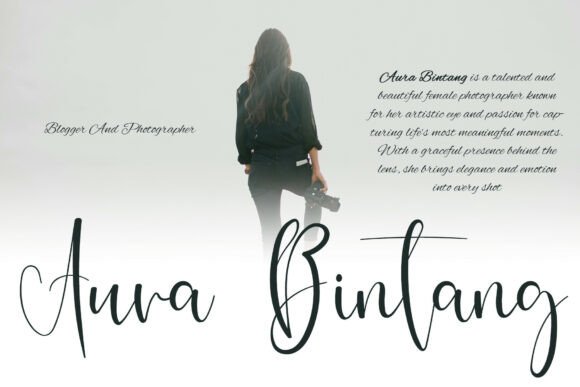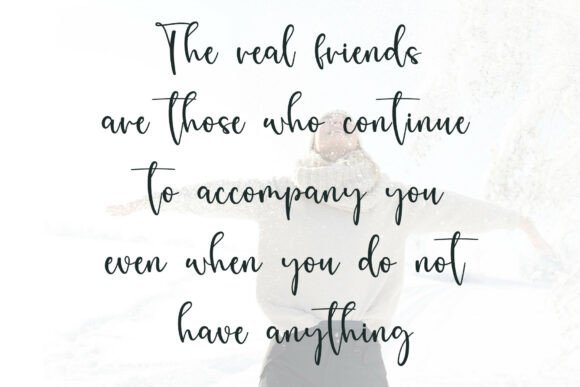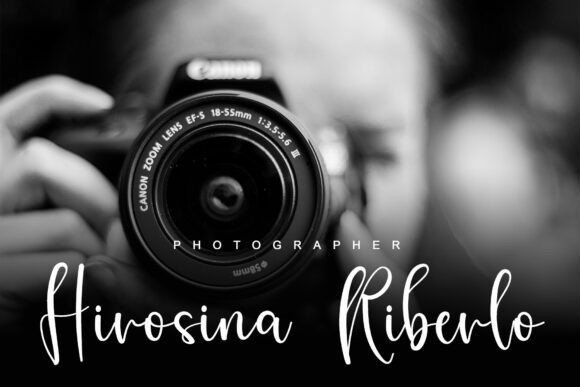
Introduction to Prefecture Font
Have you ever been stuck on a creative project, desperately searching for the perfect design resource to bring your vision to life? That’s where the Prefecture Font comes in – a beautiful, handwritten font that’s sure to add a touch of magic to your next design.
Imagine you’re planning a wedding and you want to create the perfect invitation. You’re browsing through design inspiration, and suddenly, you stumble upon a stunning invitation with a soft, characterful font that makes your heart skip a beat. That’s what the Prefecture Font is all about – creating a high-quality design that’s perfect for any celebration day.
With its PUA encoded glyphs and ligatures, this free download is a valuable addition to any designer’s toolkit. Whether you’re working on a small design project or a large-scale creative endeavor, the Prefecture Font is sure to provide a unique and memorable touch.
Key Features of Prefecture Font
- High quality font design, ideal for creative projects that require a professional look.
- Designed with high resolution in mind, suitable for use in print and digital applications.
- Unique characteristics include a modern and sleek aesthetic, making it perfect for branding and identity projects.
Honest Review: Prefecture Font
As a designer, I’m always on the lookout for high-quality design resources to elevate my creative projects. I recently came across the Prefecture Font, and I’m excited to share my thoughts on it.
Here are the things that work well:
- ✨ Beautifully crafted typography with a unique flair that sets it apart from more generic fonts.
- ✨ Excellent legibility, even at smaller font sizes, making it perfect for body text or headlines.
- ✨ High-quality vector format makes it easy to scale and edit without losing any detail.
- ⚠️ Limited character set, which may not be ideal for projects that require extensive text.
Overall, I’m impressed with the Prefecture Font’s unique design and high-quality construction. While it may not be perfect for every project, it’s definitely a valuable addition to any designer’s toolkit. If you’re looking for a distinctive font to add some flair to your creative project, I’d definitely recommend giving Prefecture Font a try.
Prefecture Font is a high-quality, free download design resource ideal for creative projects. Its unique style and transparent background make it a versatile design element for various applications.
To maximize the use of Prefecture Font, experiment with different font sizes, colors, and arrangements to create visually appealing designs. You can also combine it with other design elements to create a unique look.
Prefecture Font is suitable for a variety of creative projects, including logos, infographics, social media graphics, and website design elements. Its high-quality design and transparent background make it a popular choice among designers.